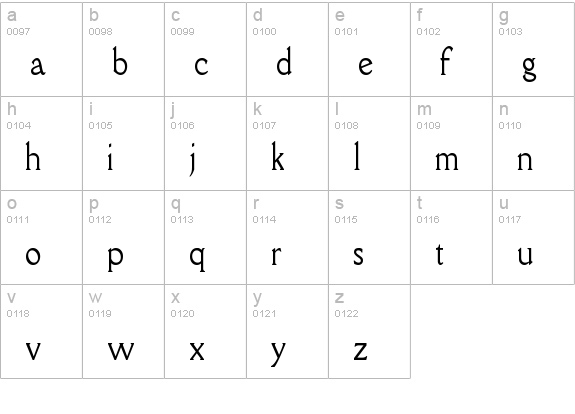
Rory Condensed Normal is the standard, neutral, condensed-width variant in the Rory typeface family \xE2\x80\x94 well suited to general body text, paragraphs, and standard typographic work.
Rory Condensed Normal is a sleek and modern typeface that exudes sophistication and elegance. Its condensed design makes it perfect for creating eye-catching headlines and titles that demand attention. The clean lines and balanced proportions of Rory Condensed Normal give it a timeless appeal that is versatile for a wide range of design projects. This font is available for free download at FontsMarket.com, making it accessible to designers and creatives looking to elevate their work with a high-quality typeface. Whether you're designing a logo, poster, website, or any other project, Rory Condensed Normal is sure to add a touch of professionalism and style. Don't miss out on this opportunity to enhance your designs with this beautiful and versatile font.